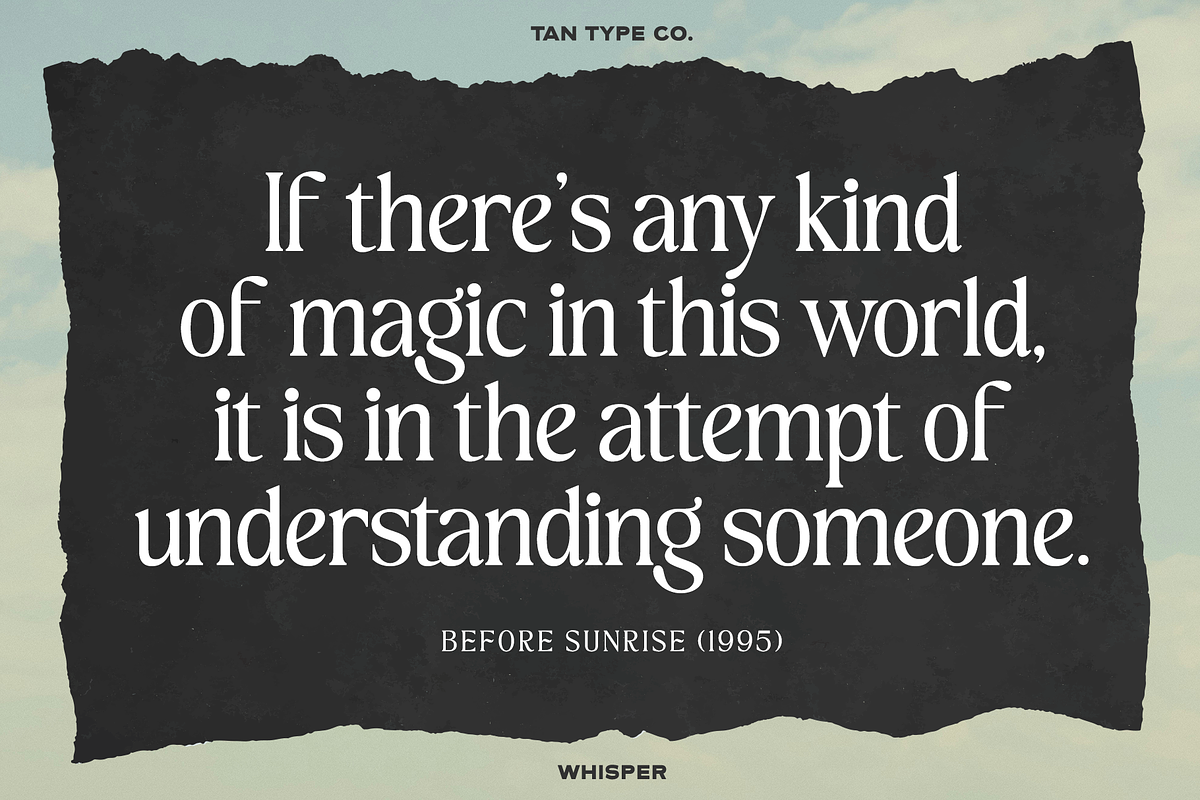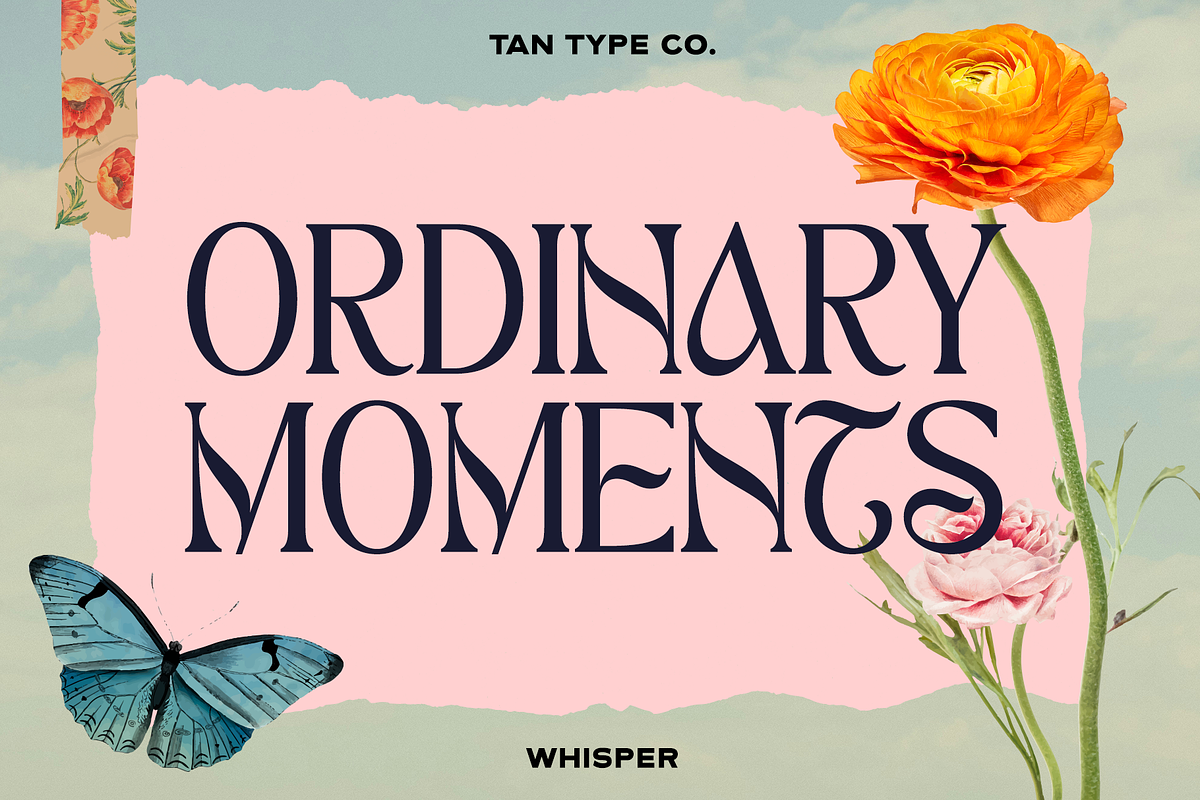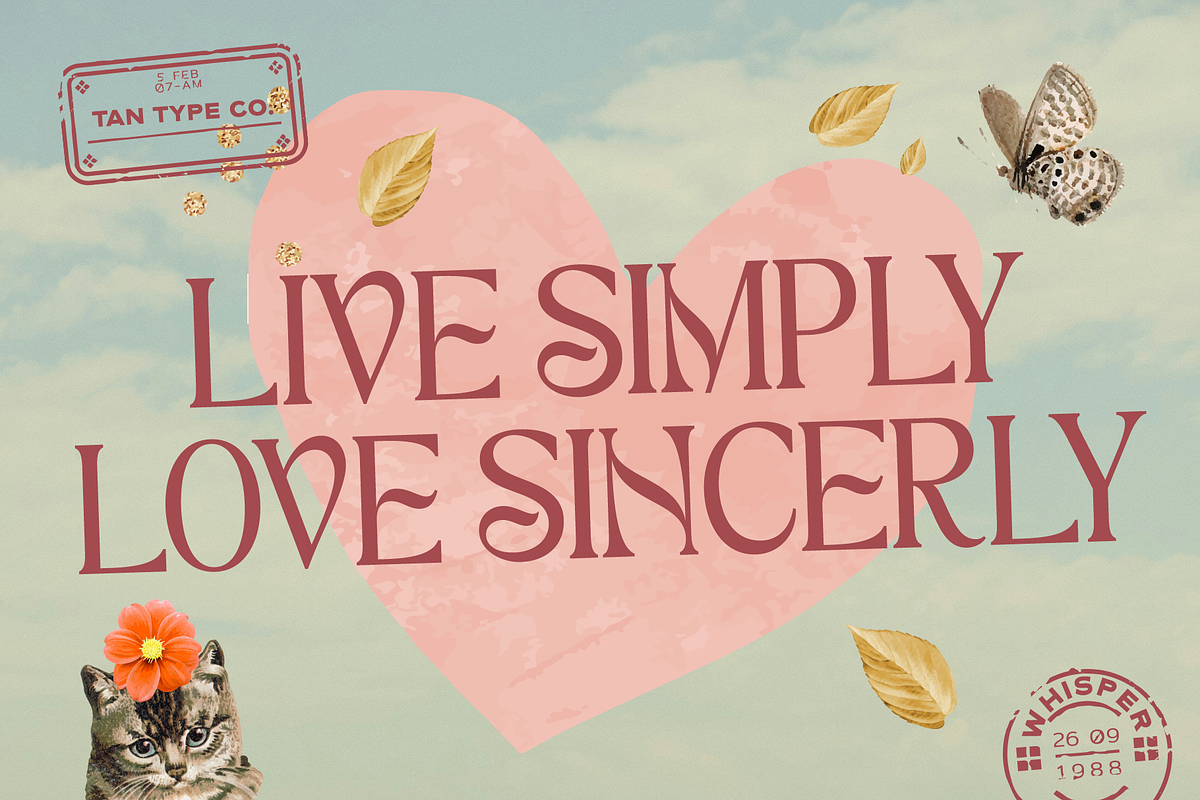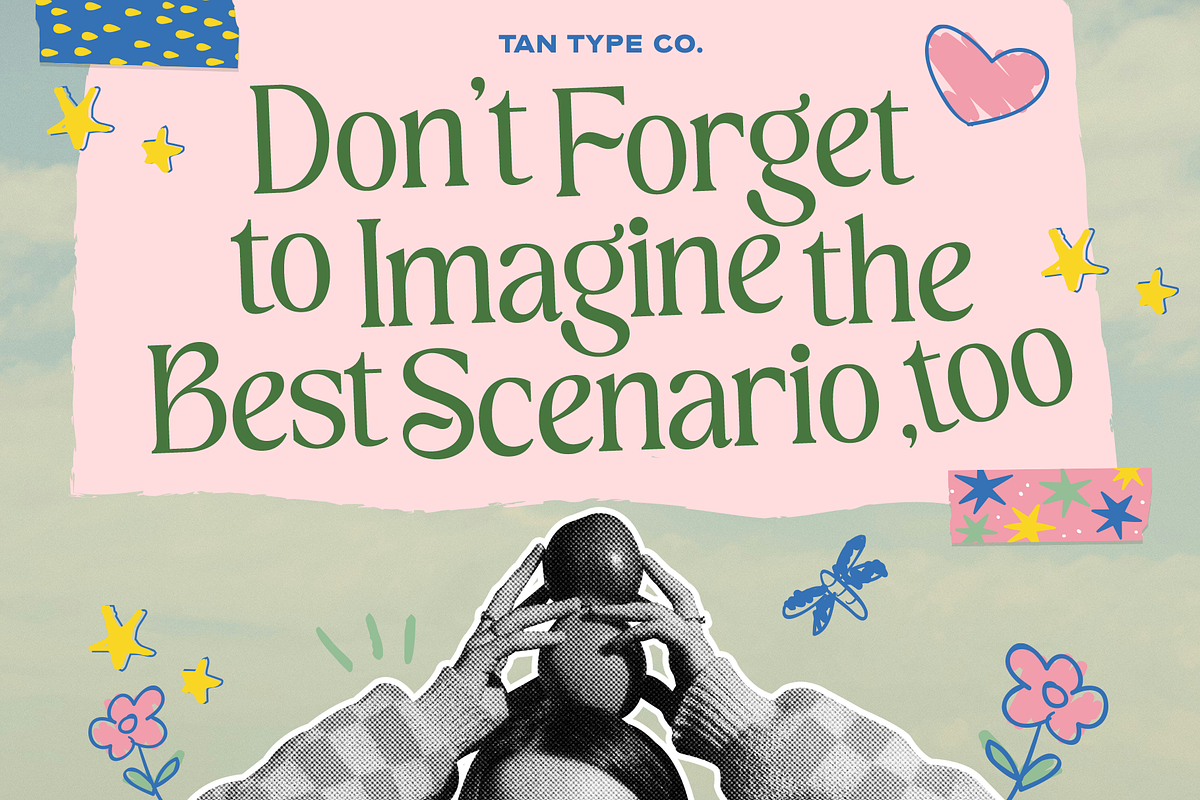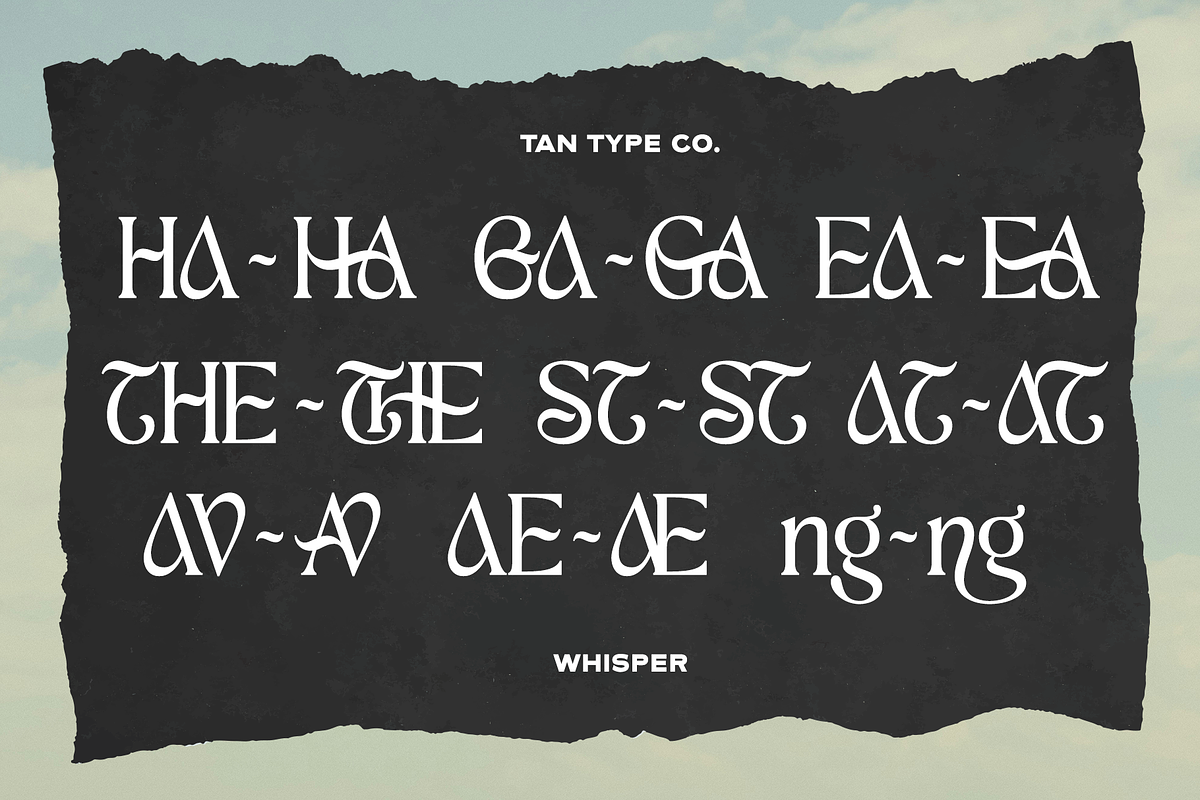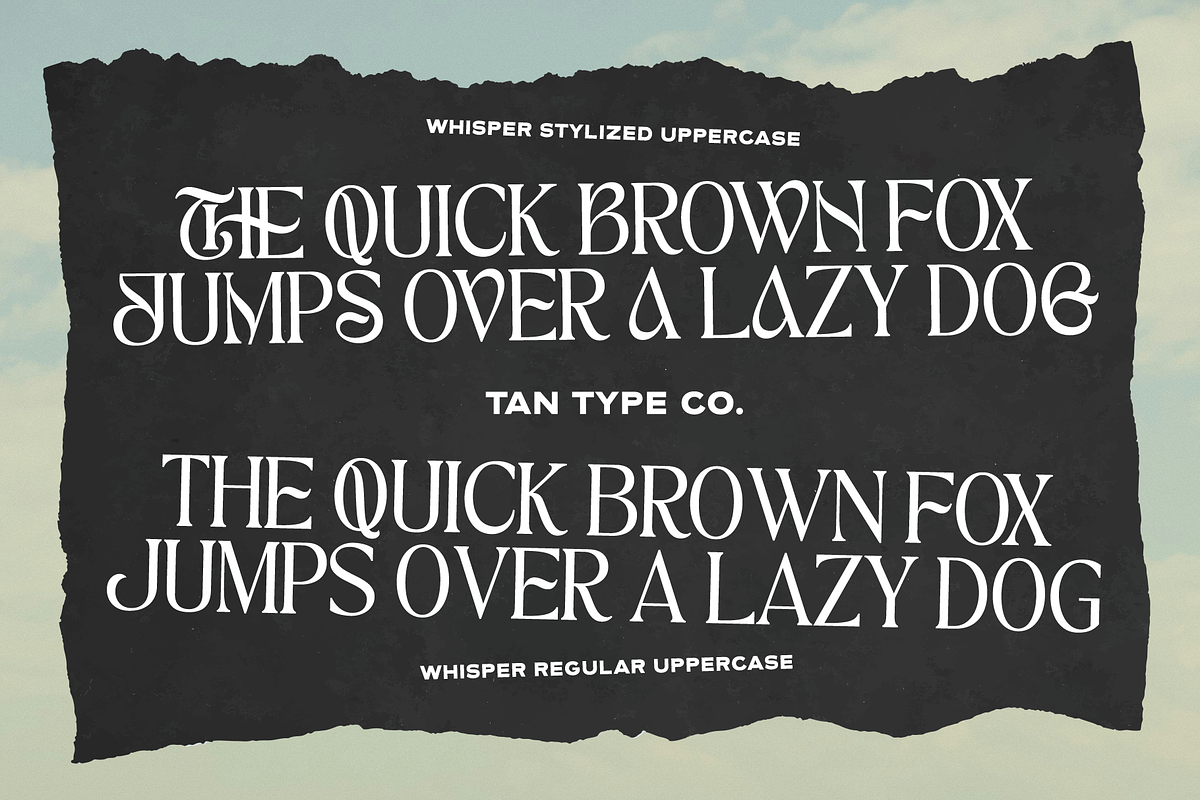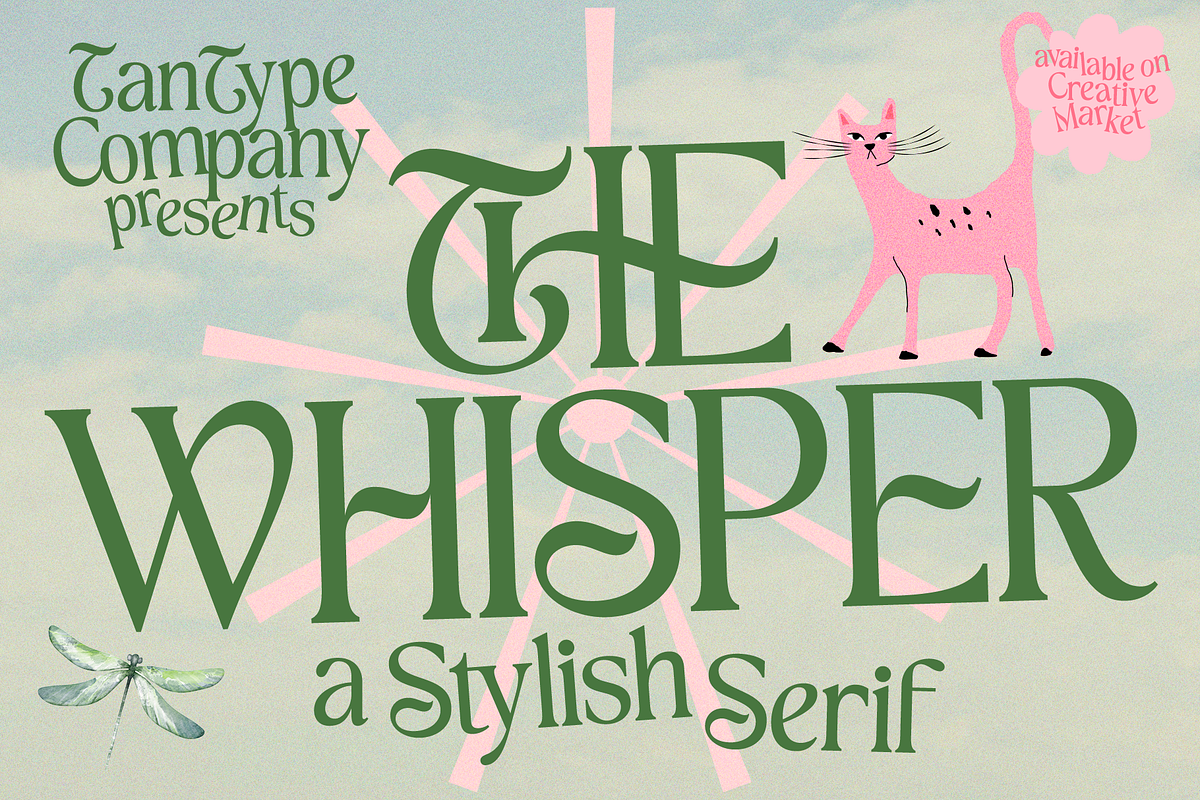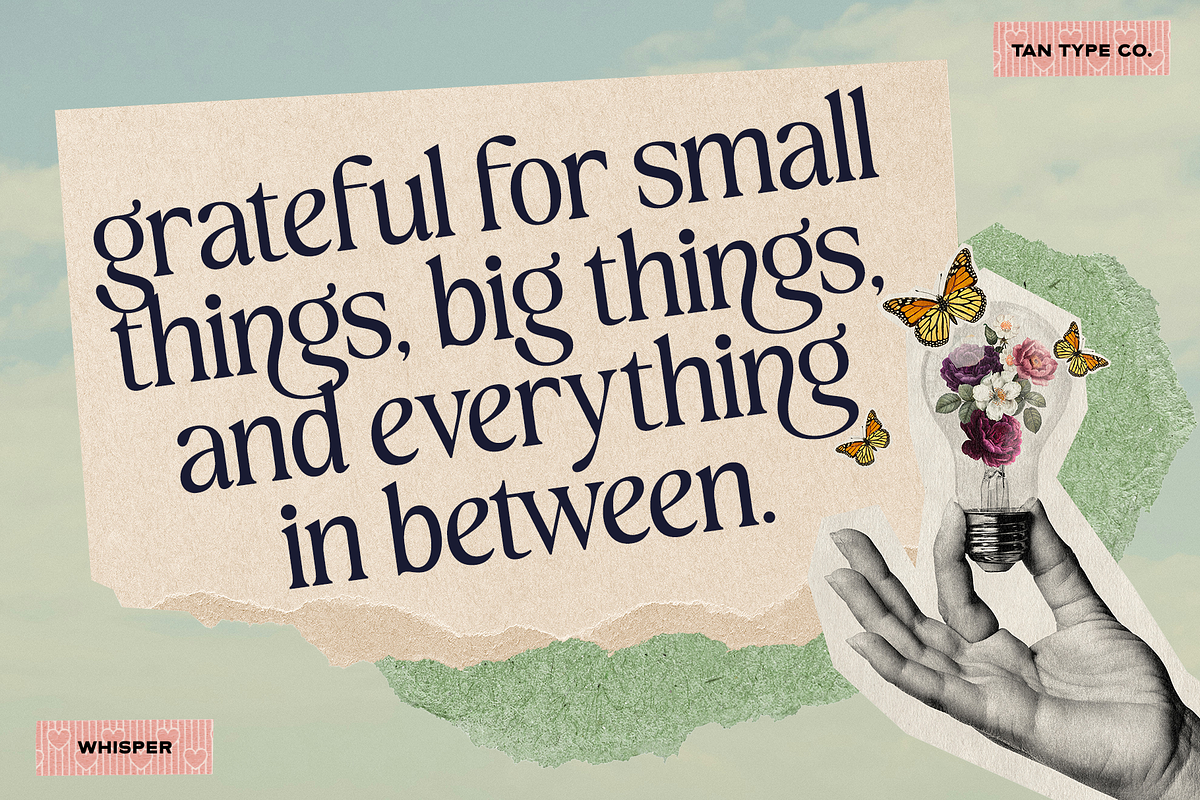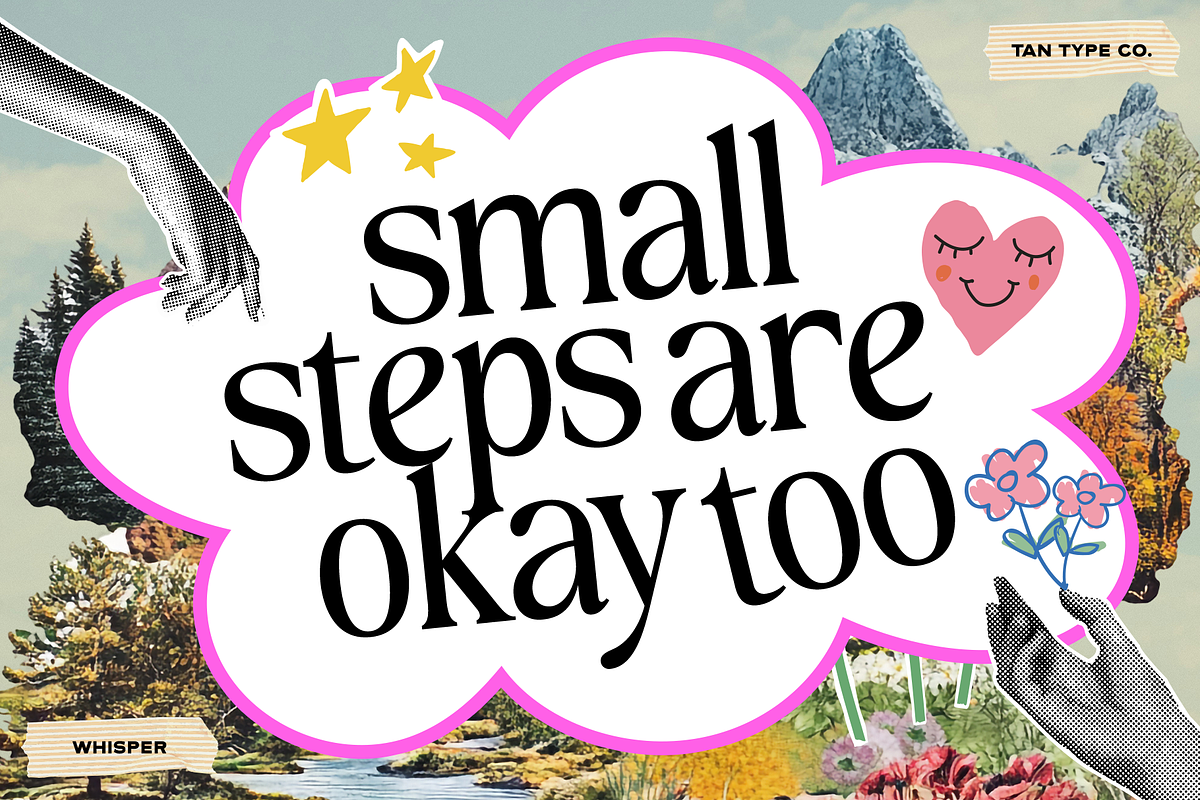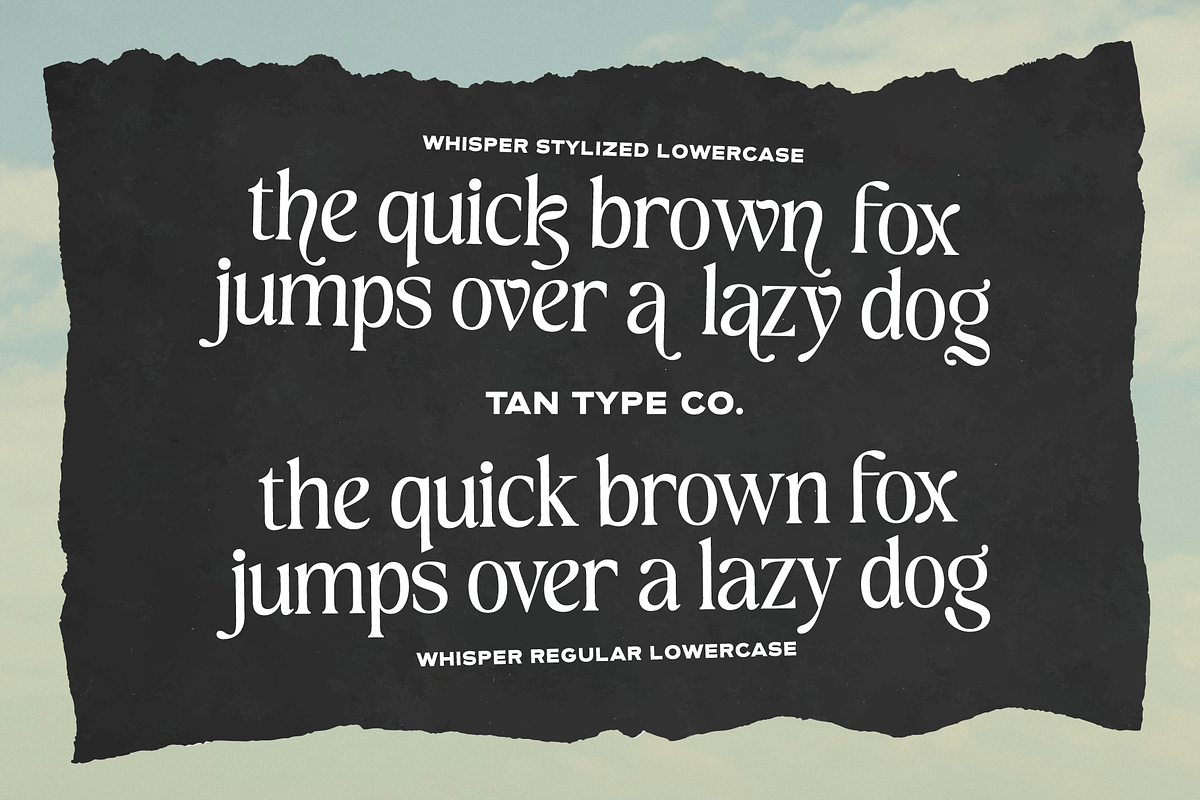
TAN - WHISPER
TAN-WHISPER is an elegant serif with a playful twist. Its expressive curves and distinctive details make it perfect for branding, editorial, invitations, packaging, and anything that needs a little character.